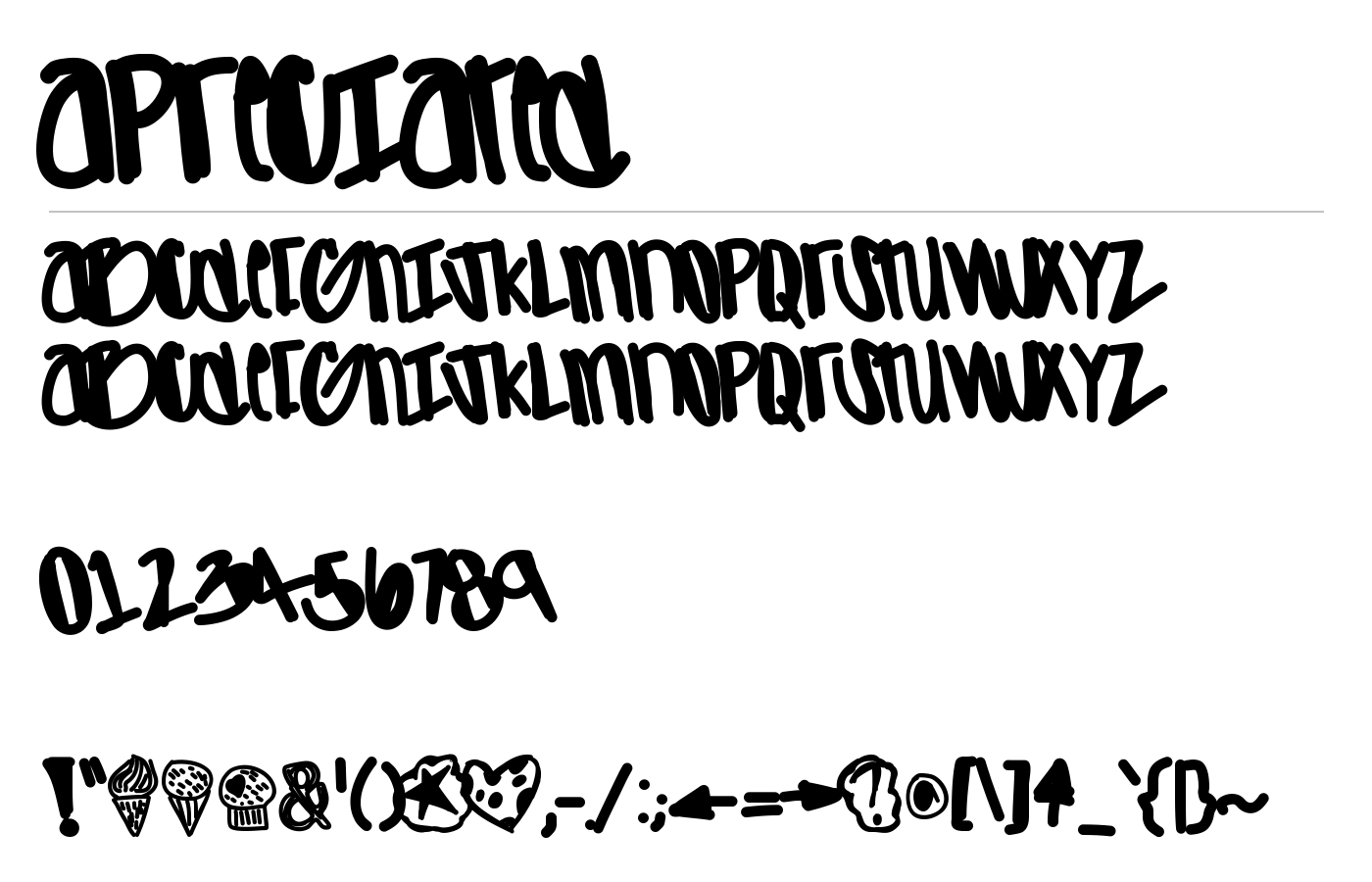
Apreciated Font is a playful, handwritten sans serif typeface with a bold, chunky weight and casual style. Its quirky letterforms and informal, irregular strokes give it a fun, youthful personality that works well for creative projects, kids’ designs, or expressive branding. This font shines in headlines, posters, and packaging where a lively, hand-drawn feel is desired.
Apreciated Font
About Apreciated Font